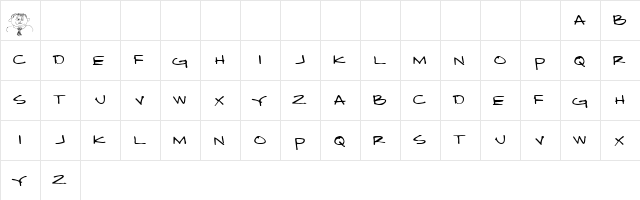
Damned Architect Regular
Design Context for Damned Architect Typeface
Damned Architect is a composed and adaptable typeface that performs quietly and consistently across a wide range of design contexts.